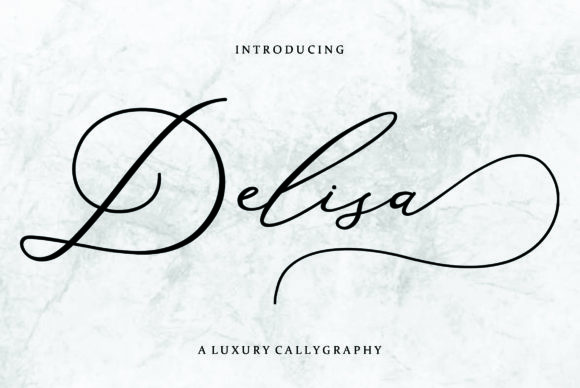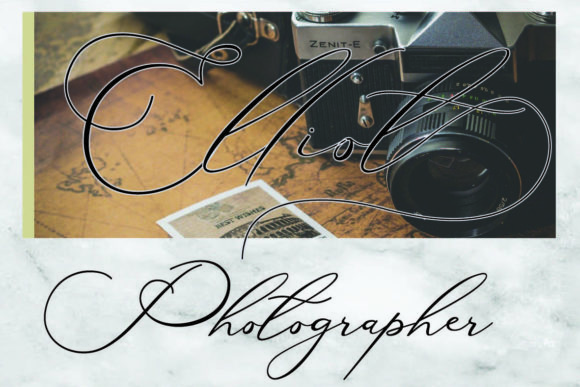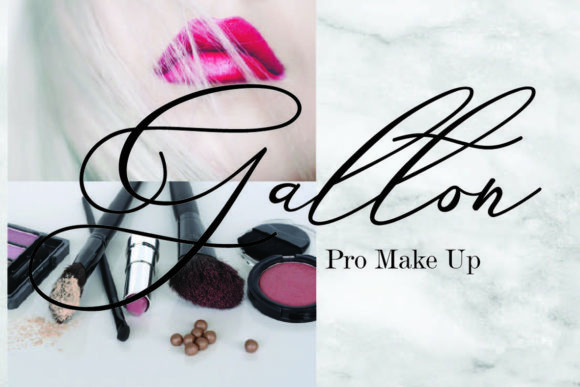
About Delisa Font
Delisa is sweet and modern handwritten font. It features gorgeous swashes and ligatures that make this script incredibly versatile. Fall in love with its authentic feel and use it to create gorgeous wedding invitations, beautiful stationary art, eye-catching social media posts, and cute greeting cards. This font is PUA encoded which means you can access all of the cute glyphs and swashes with ease! It also features a wealth of special features including alternate glyphs and ligatures.